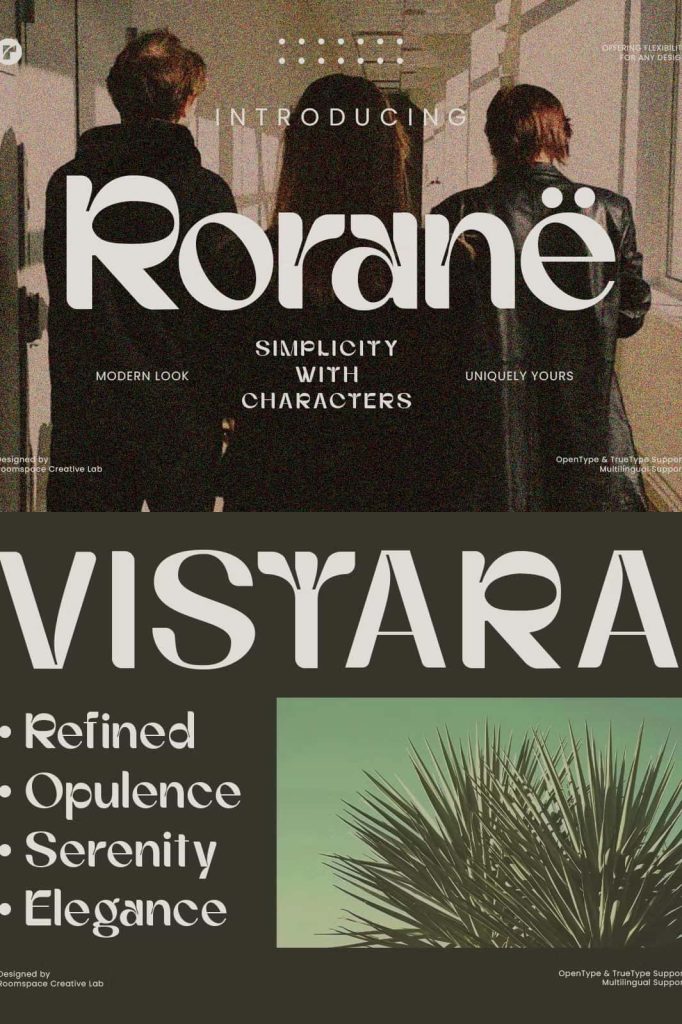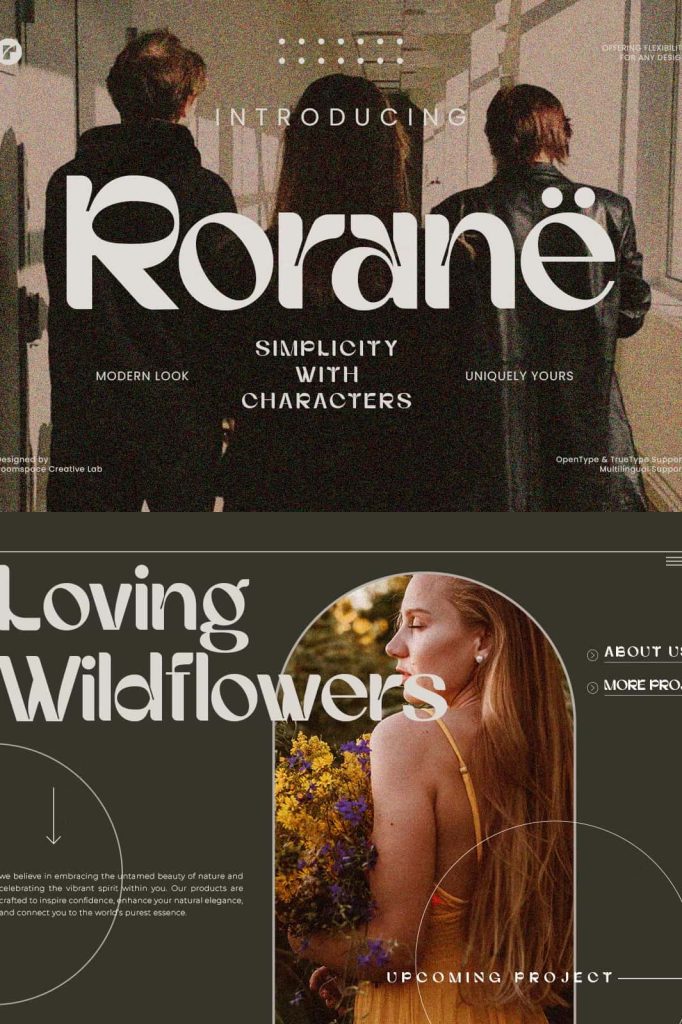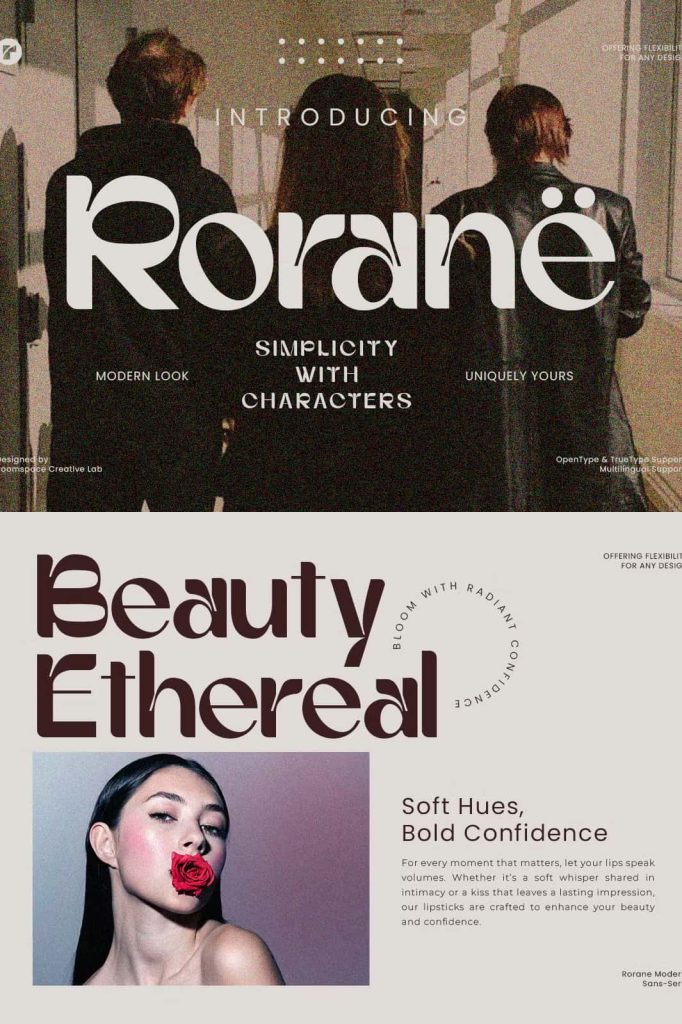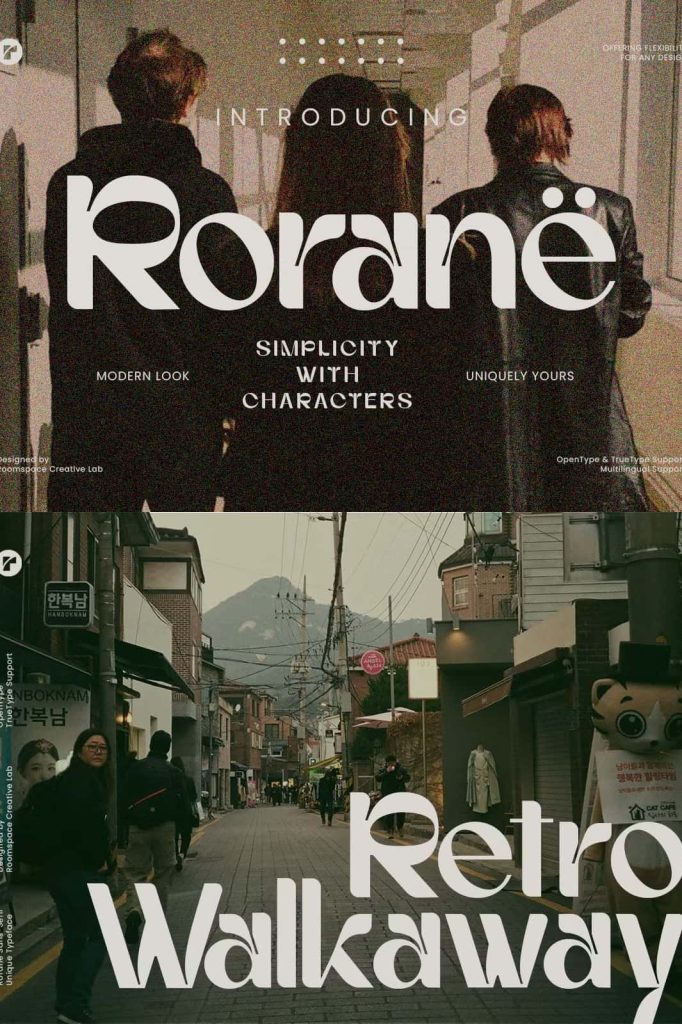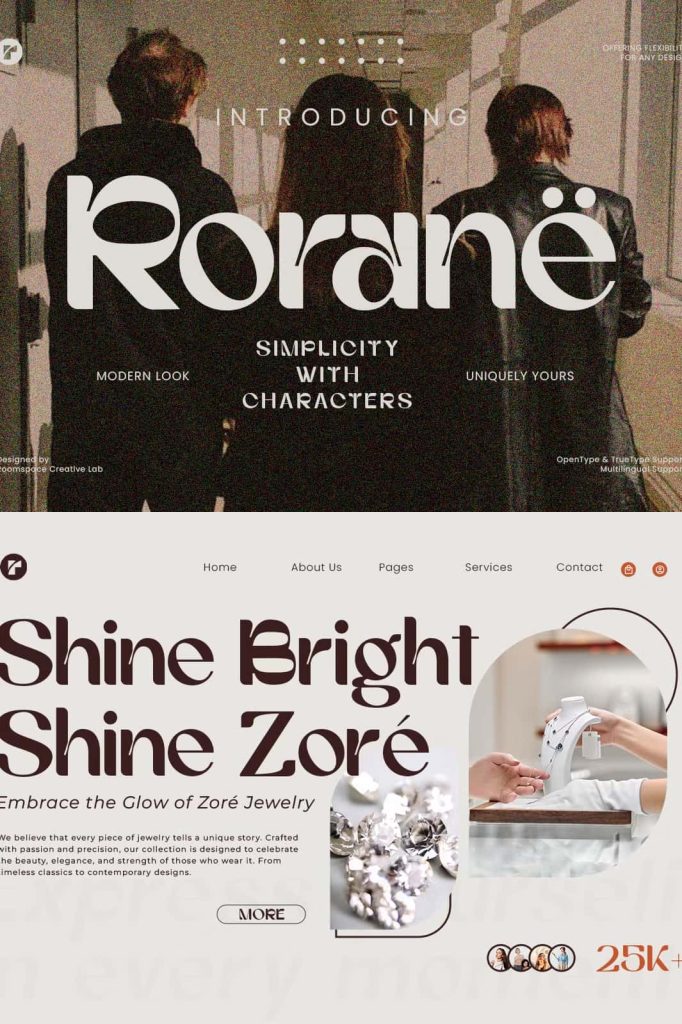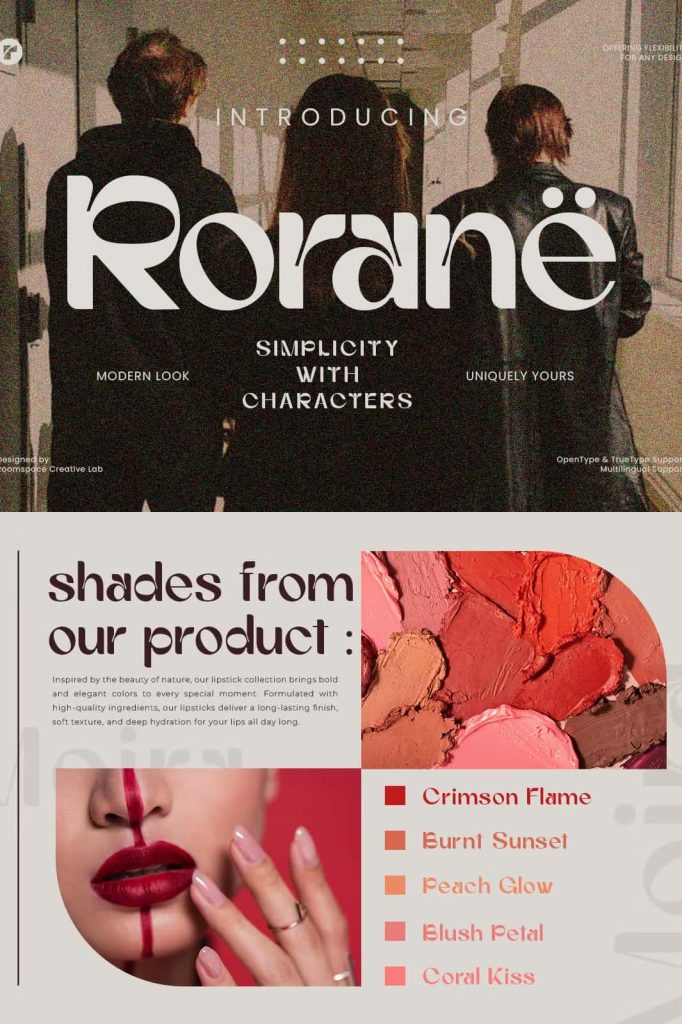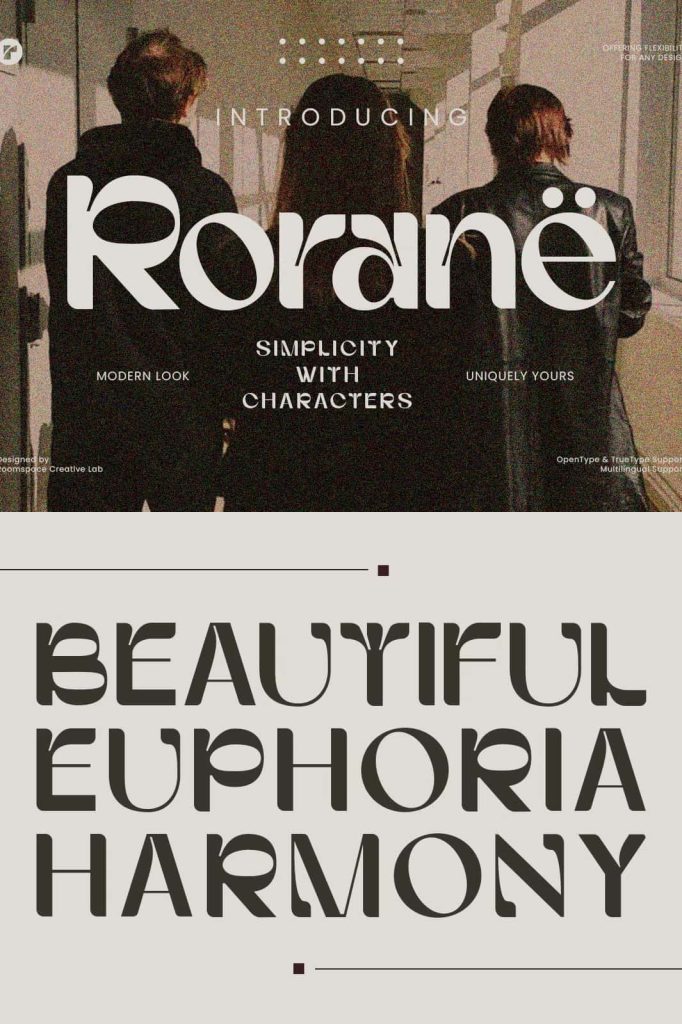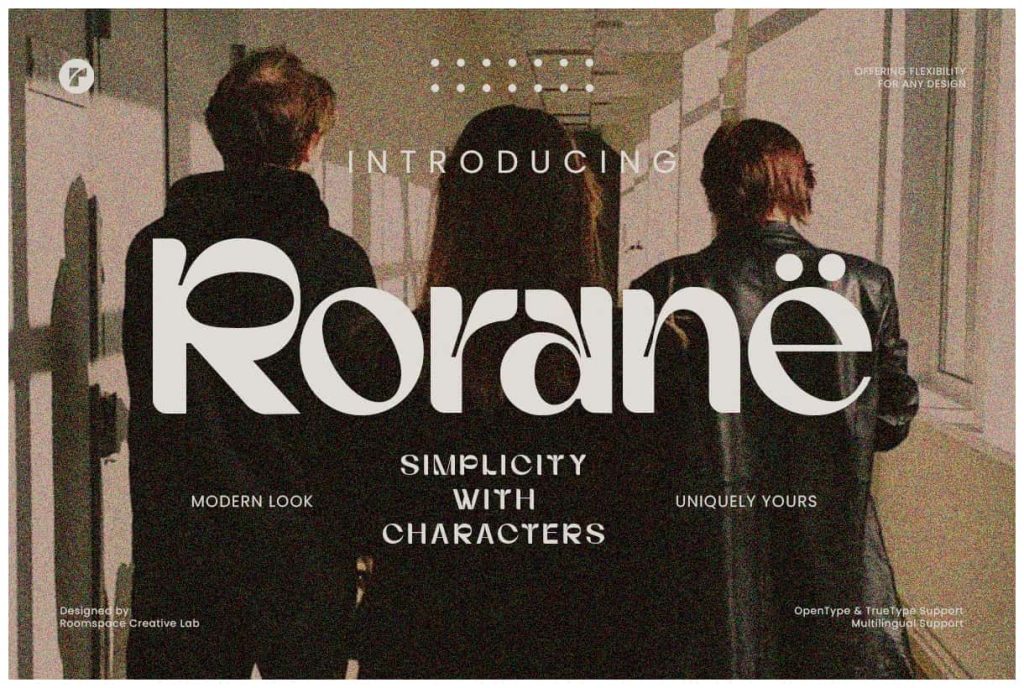
Rorane – Modern Minimailst Display
Say hello to Rorane – a modern sans-serif font that’s uniquely yours. Rorane is clean, creative, and just the right touch of bold without being overwhelming.